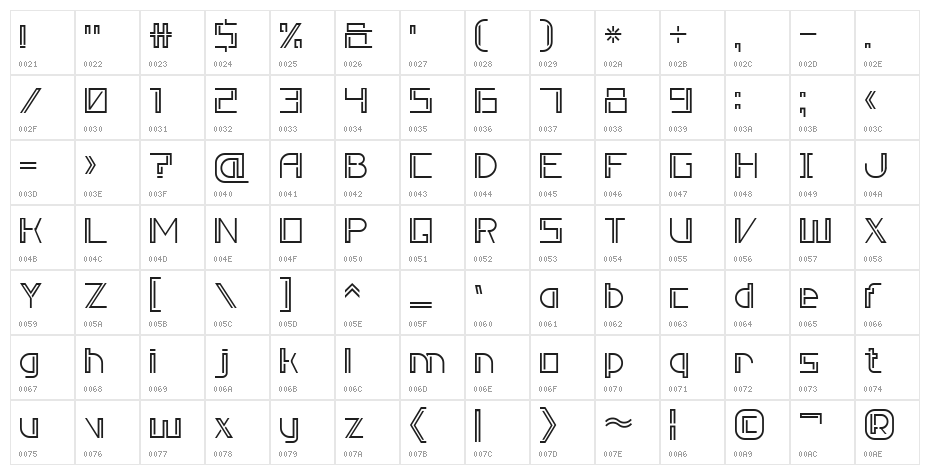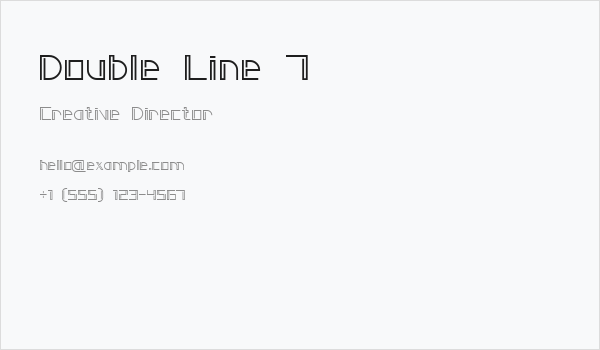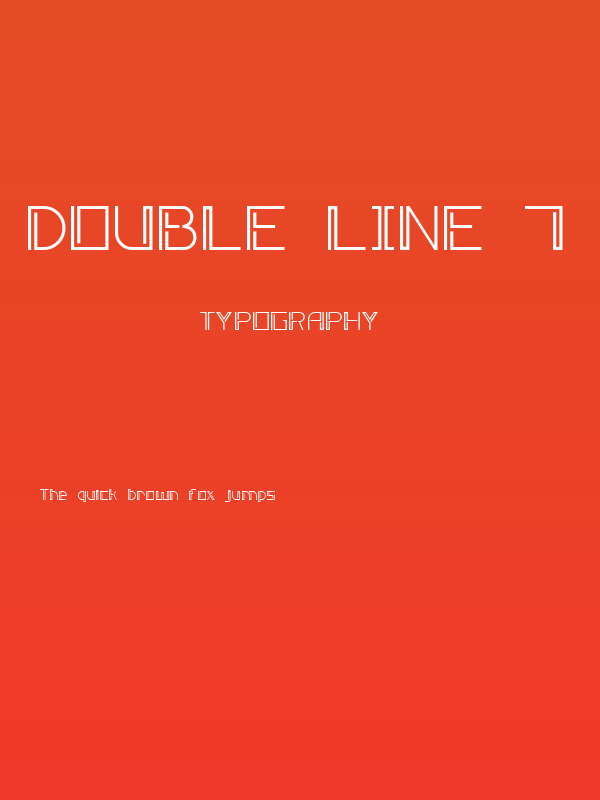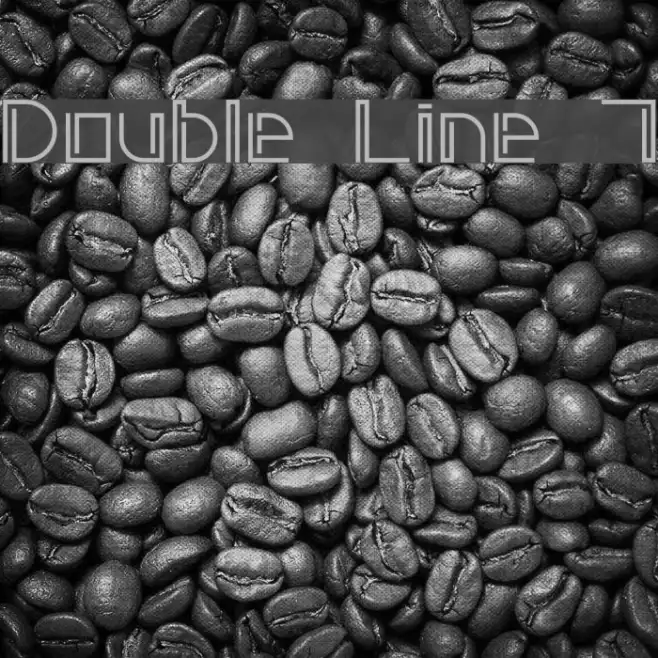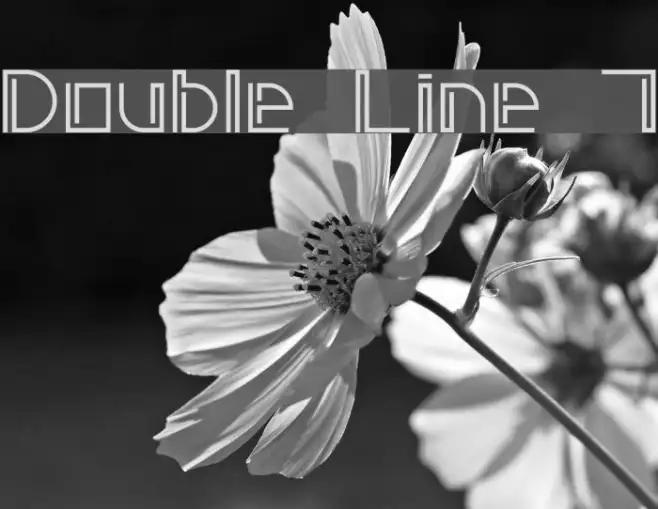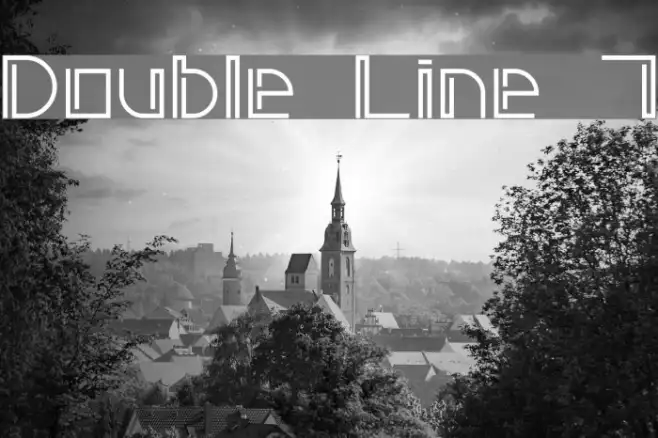
Double Line 7 Font
Double Line 7 Description
This font features a unique double-line design that gives each character a modern and futuristic appearance. The geometric structure is consistent across uppercase, lowercase, numerals, and special characters, creating a cohesive look. The lines are evenly spaced, providing a clean and organized aesthetic. The font's style is both decorative and functional, making it suitable for a variety of creative applications. Its distinct appearance ensures that it stands out, making it ideal for projects that require a bold and innovative look.
| Proposed Projects | Ideal for branding, posters, digital artwork, and any project that requires a modern and eye-catching typeface. |